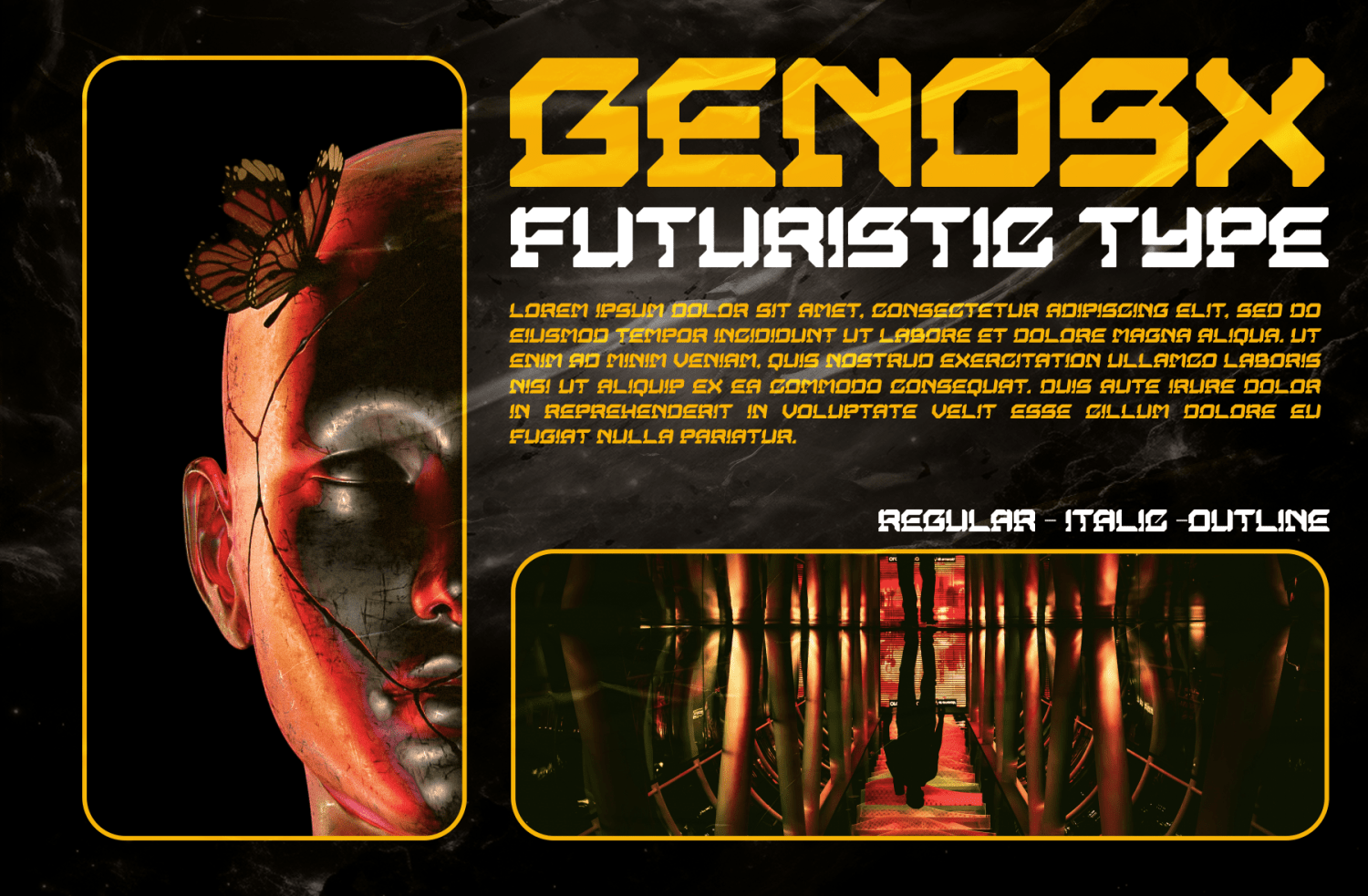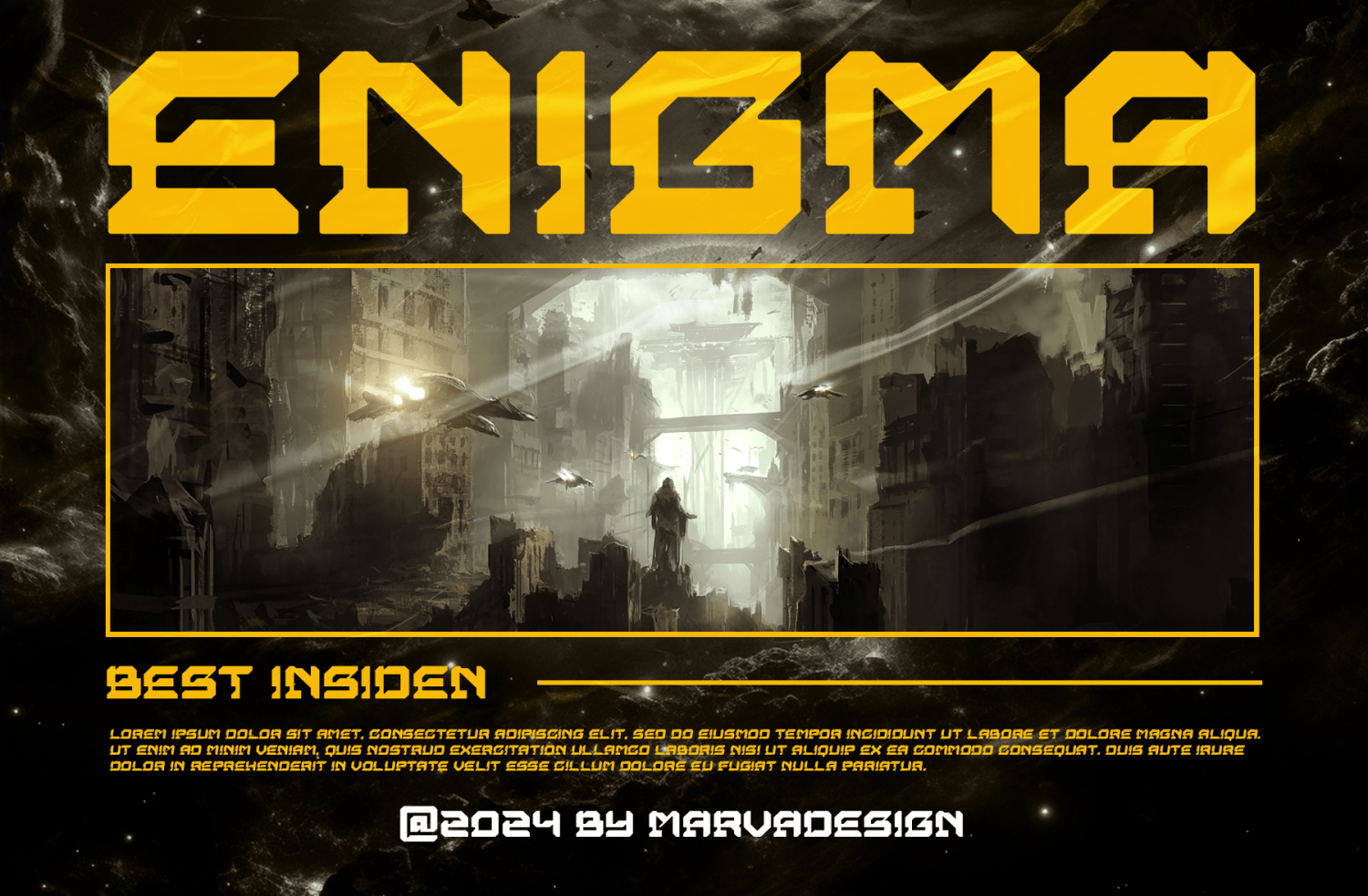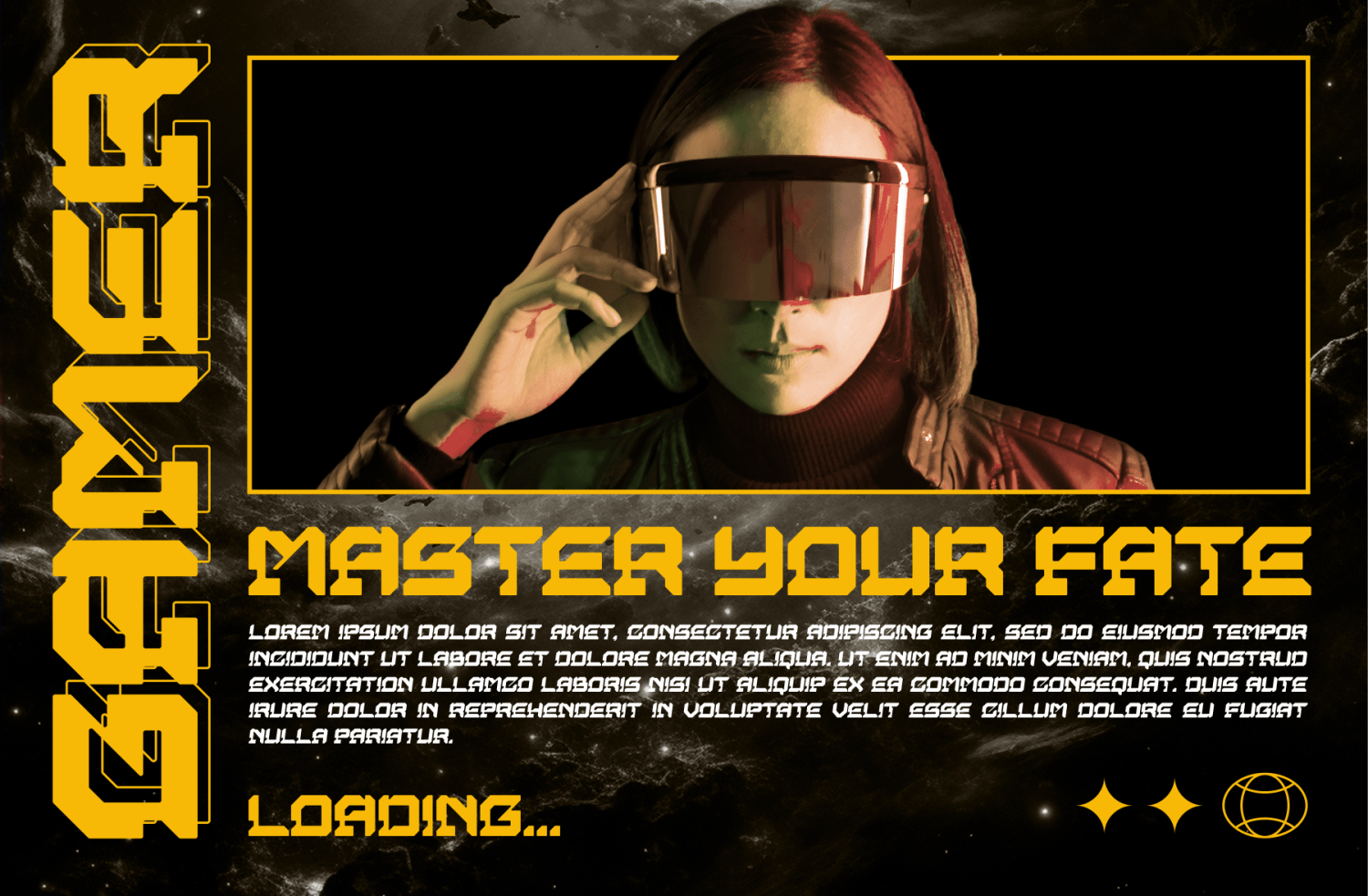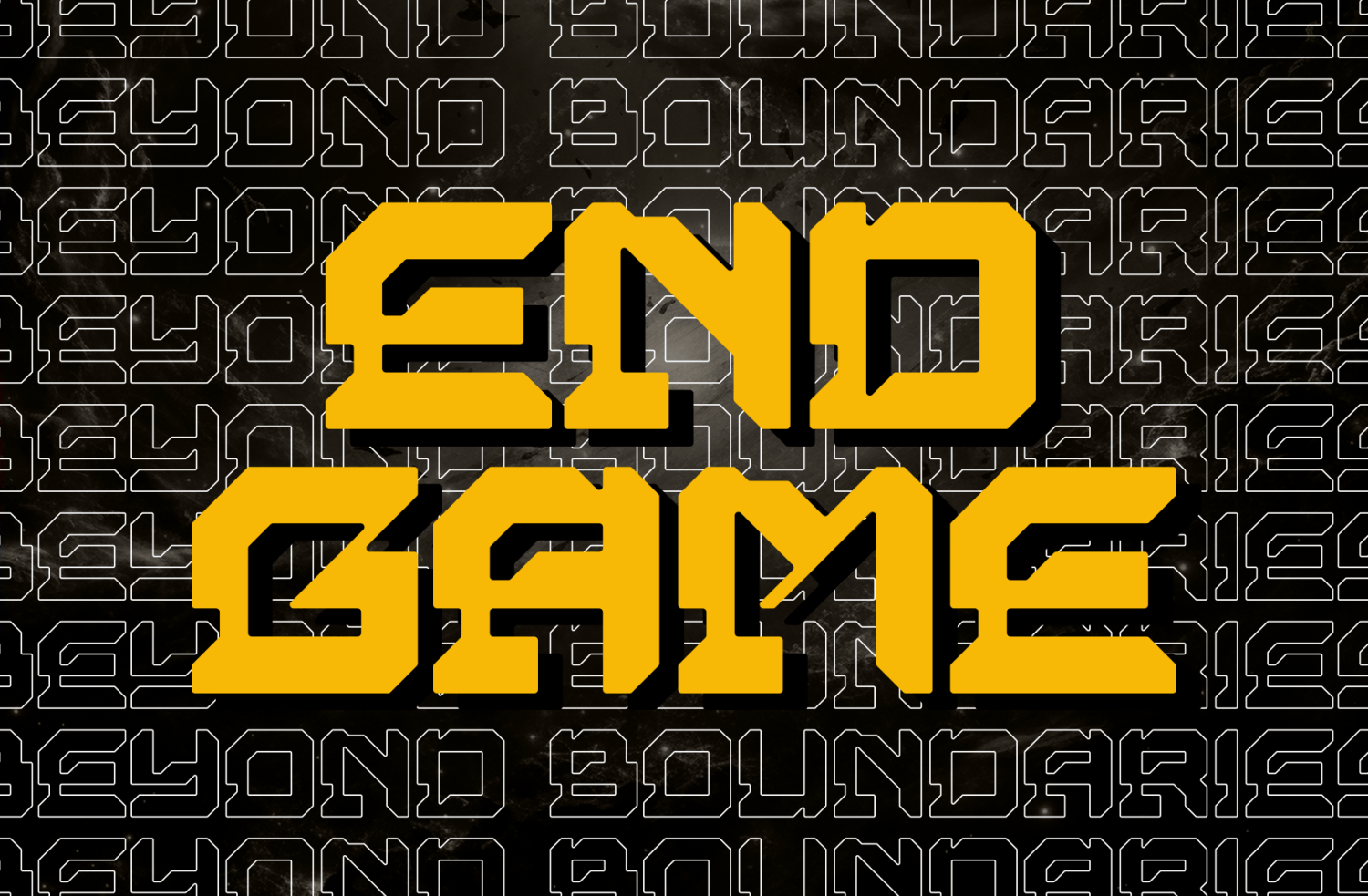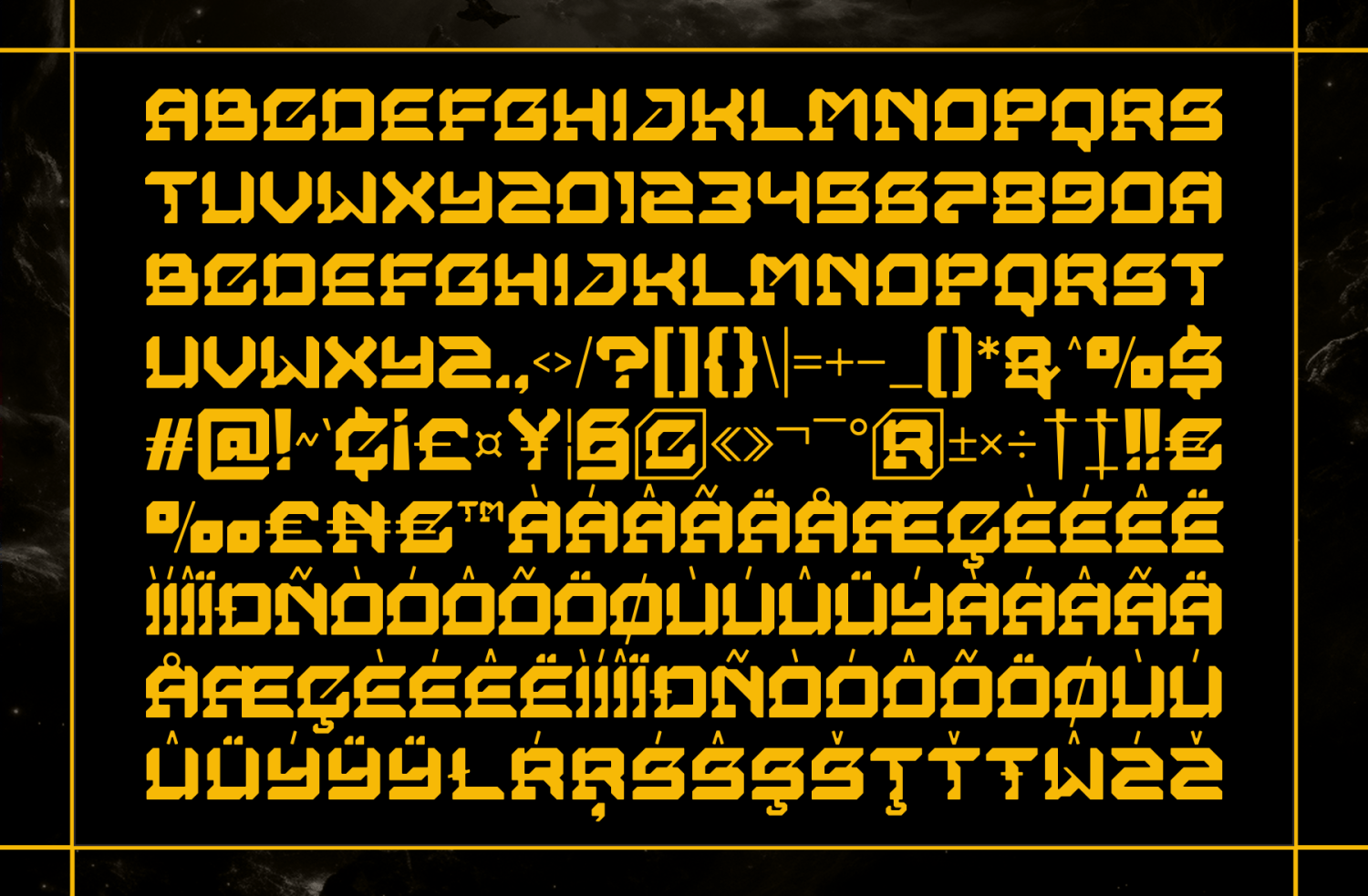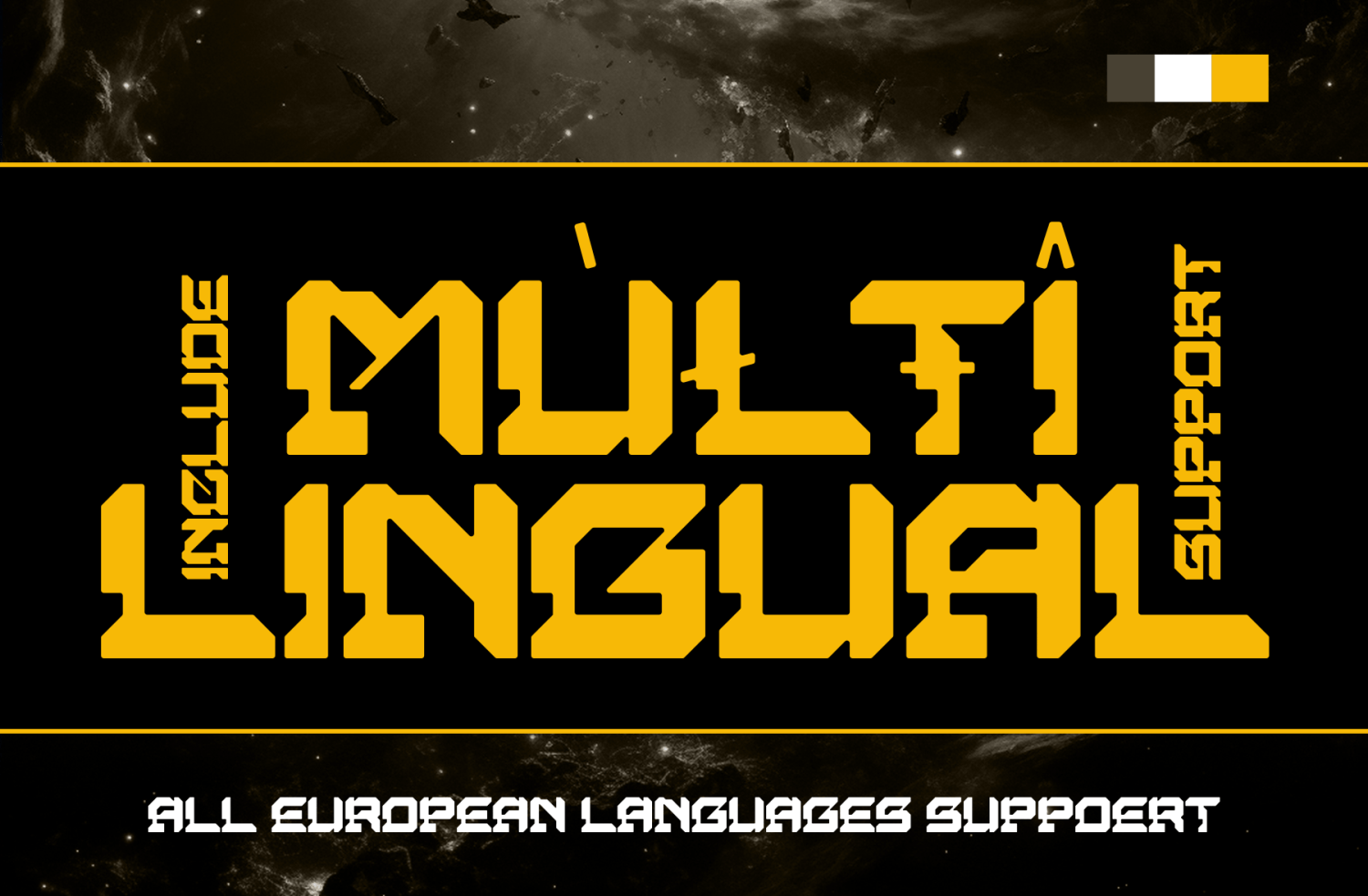
Genosx
Font Family by Marvadesign
Genosx Font - A retro future authentic display font. The font is suitable for any branding project like logo, template design, products, and many more. Outstanding in a wide range of contexts.